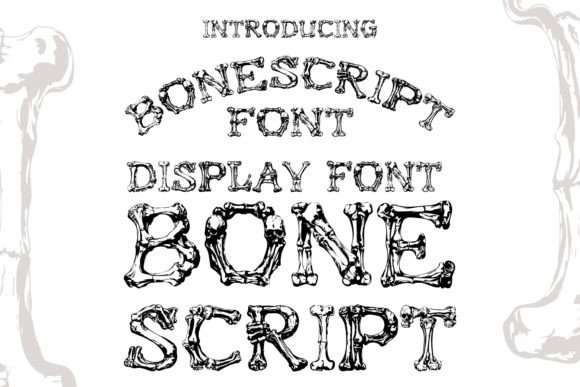
Unleash the Spooky Charm of BoneScript Font
I’ll never forget the time I was working on a Halloween-themed project for a client, and I was struggling to find the perfect font to capture the eerie and playful vibe of the season. The client wanted something that would make their party invitations stand out, but I was stuck in a design rut. That’s when I stumbled upon BoneScript Font, a uniquely conceived skeleton display typeface that would change the game for my project and, ultimately, for my design work.
A Spooky Masterpiece: First Impressions
BoneScript Font is more than just a font; it’s an experience. This gothic bone alphabet makes an indelible impression, lending itself strikingly to Halloween compositions and spine-chilling skull typography. Every single character in this hand-drawn bone style font, whether it’s a letter, number, or symbol, has been delicately molded to mirror real bones in uncanny detail, giving your work a tantalizingly spooky aesthetic.
So, what makes BoneScript Font a must-have for designers, crafters, and creative hobbyists? Here are a few things I love:
- ✨ Unique and Memorable: This font is unlike any other. Its distinctive bone-inspired design makes it perfect for projects that require a touch of the macabre or supernatural.
- ✅ High-Quality and Versatile: BoneScript Font comes in high-definition resolution, making it suitable for both digital creations and print productions.
- 🔍 Attention to Detail: The level of detail in this font is impressive. Each character is meticulously crafted to resemble real bones, adding an authentic touch to your designs.
While BoneScript Font is a fantastic addition to any design toolkit, there are a few quirks to be aware of:
- ⚠️ Legibility at Small Sizes: Due to its intricate design, BoneScript Font may not be the best choice for body text or small font sizes. It’s best used for headlines or display purposes.
- 🤔 Limited Use Cases: While incredibly versatile, the font’s theme might limit its use to specific projects or seasons, such as Halloween-themed designs.
While the origins of BoneScript Font might be shrouded in mystery, it’s clear that the designer was inspired by the macabre and the supernatural. Imagine a late-night stroll through a spooky graveyard, the moon casting eerie shadows on weathered tombstones. That’s the kind of atmosphere that likely fueled the creation of BoneScript Font.
| Does BoneScript Font include accented characters? | Yes, BoneScript Font includes a range of characters, including accented ones, to help you create diverse and inclusive designs. |
Incorporating BoneScript Font into your designs can add a supernatural touch that’s sure to captivate your audience. Whether you’re working on monstrous party invitations, gruesome horror posters, or bone-chilling apparel designs, BoneScript Font caters to all corners of your spine-tingling imagination. So, don’t be afraid to get creative and let the eerie charm of BoneScript Font take your designs to the next level!